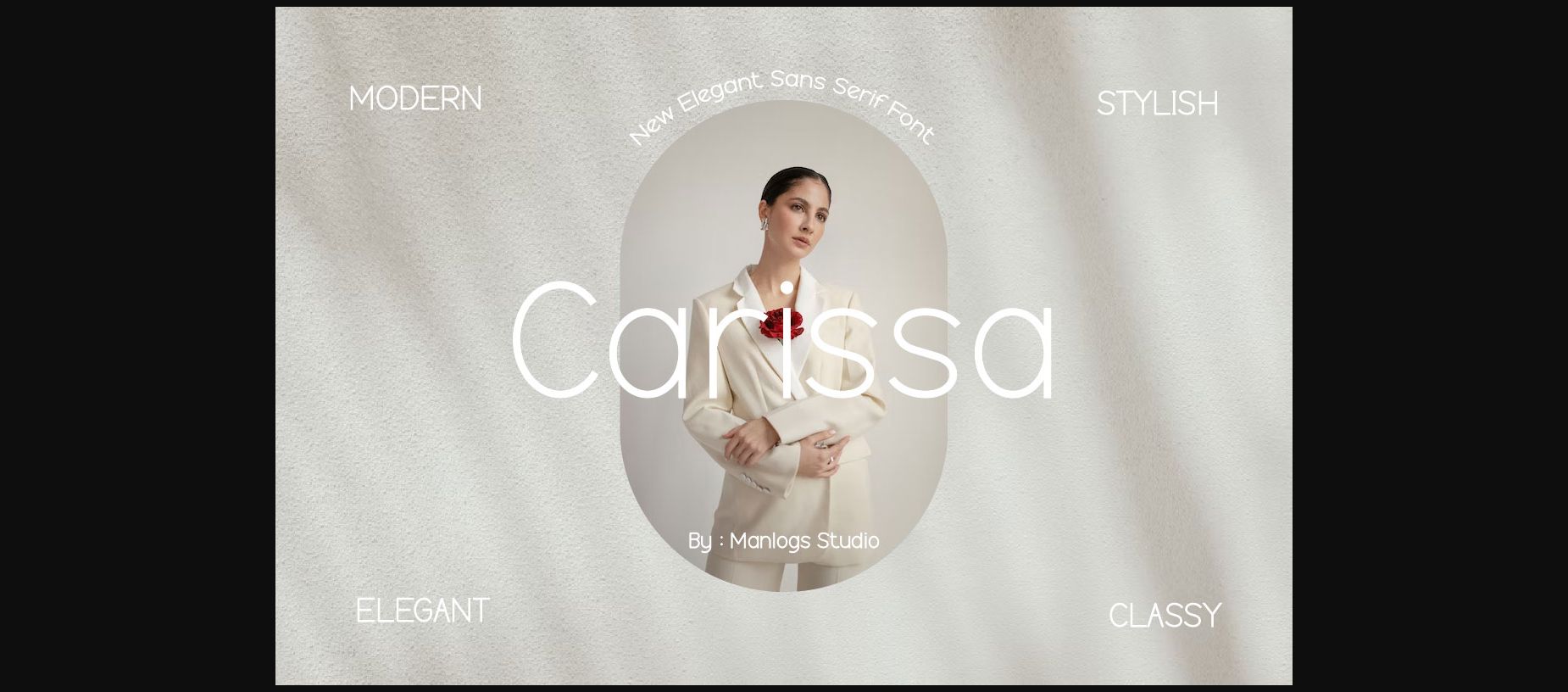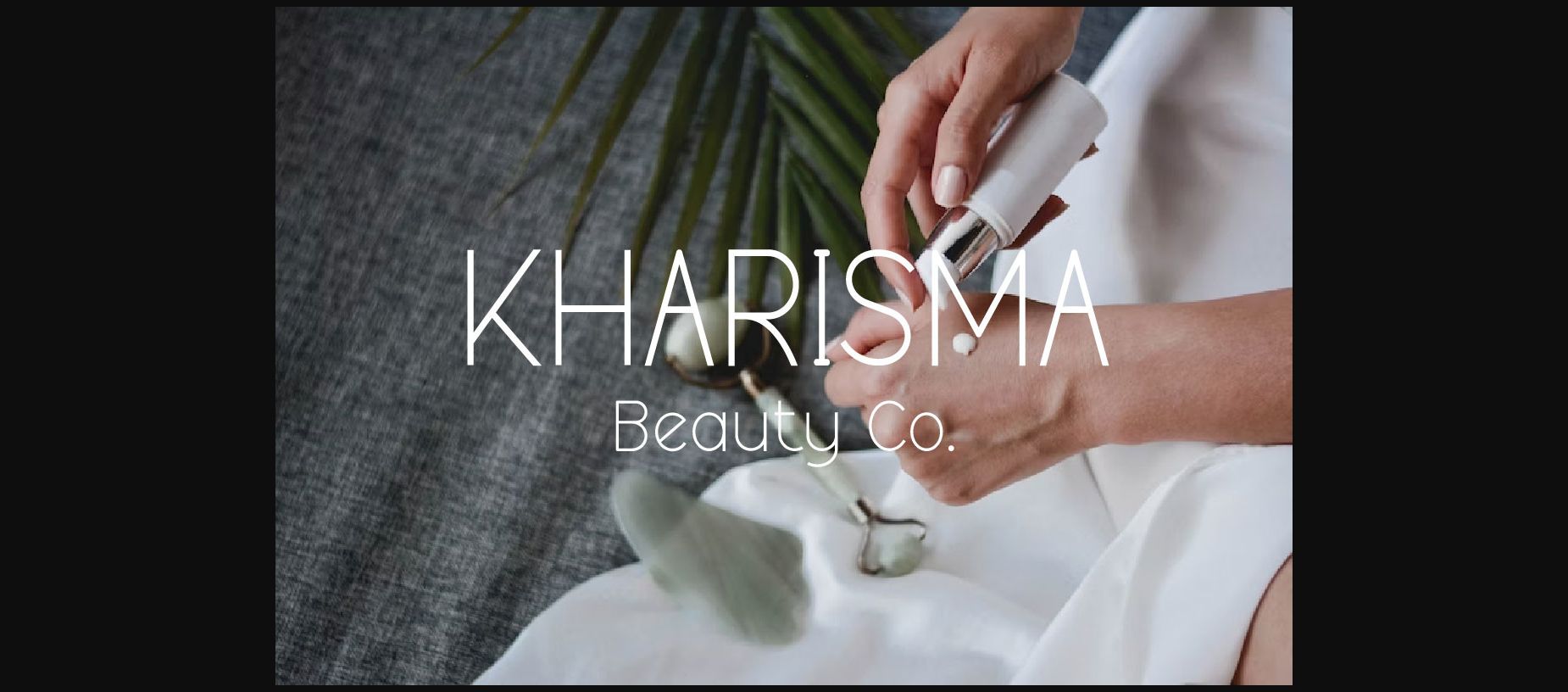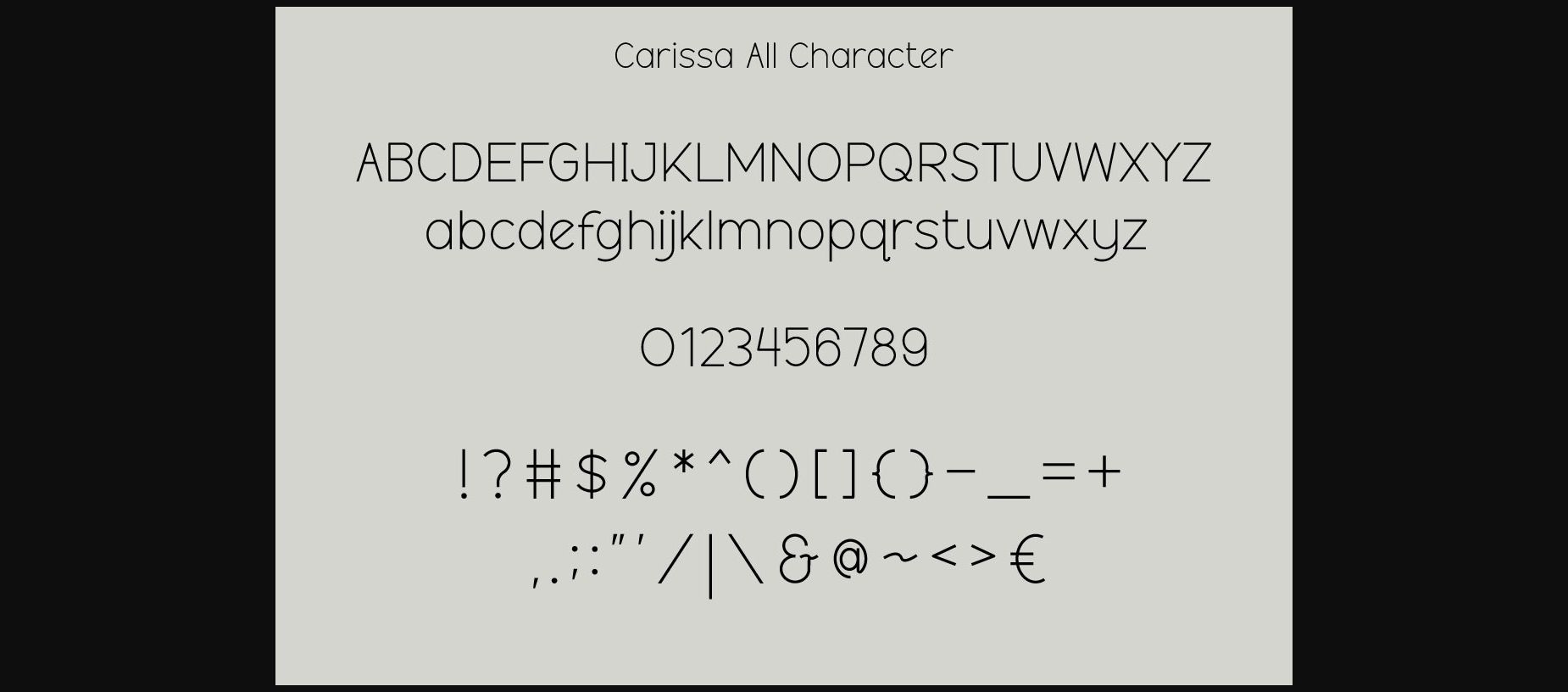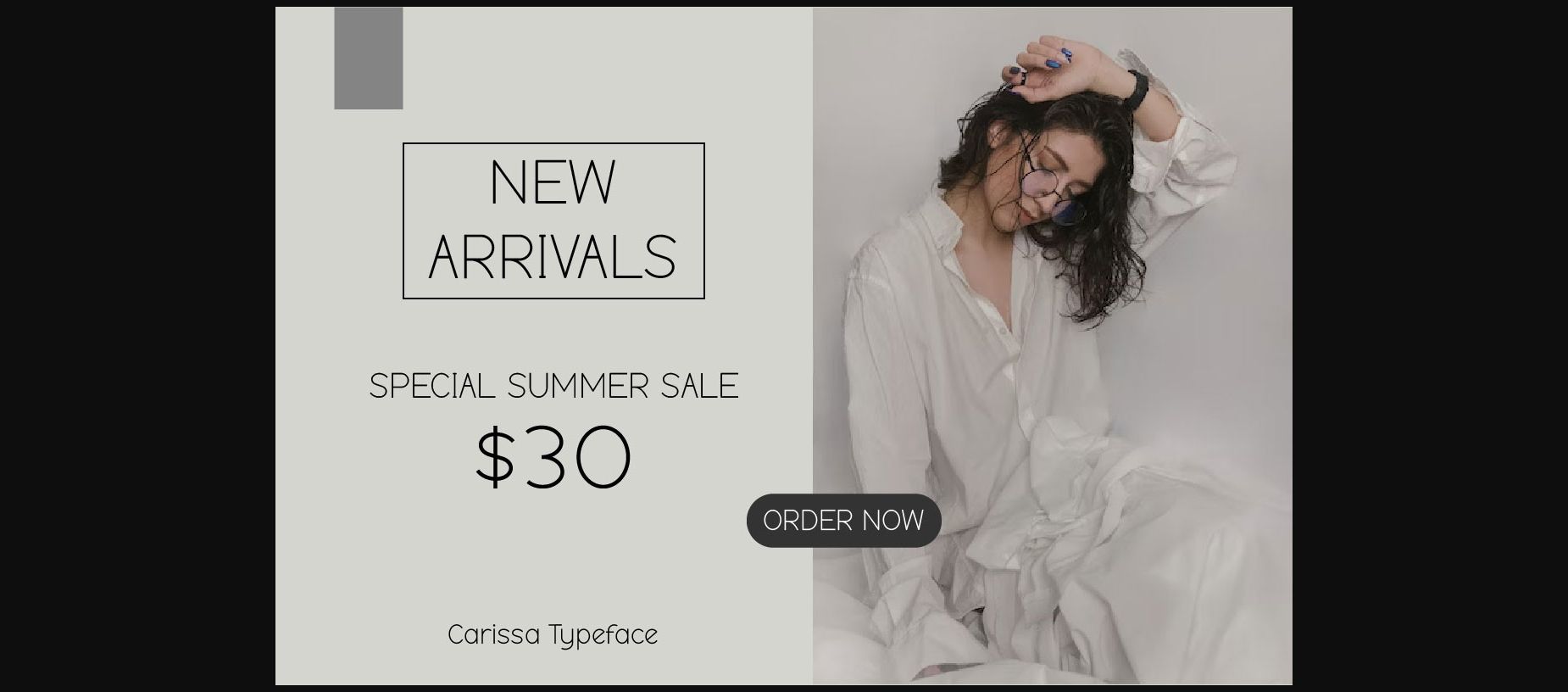
About Carissa Font
Introducing the Elegant Sans Serif Typeface “CARISSA” inspired by the famous minimalist logo perfect for your needs in fashion products, fashion design. designing templates, brochures, videos, advertising branding, logos, invitations, layout designs, elegant crafts, beauty designs and many more.